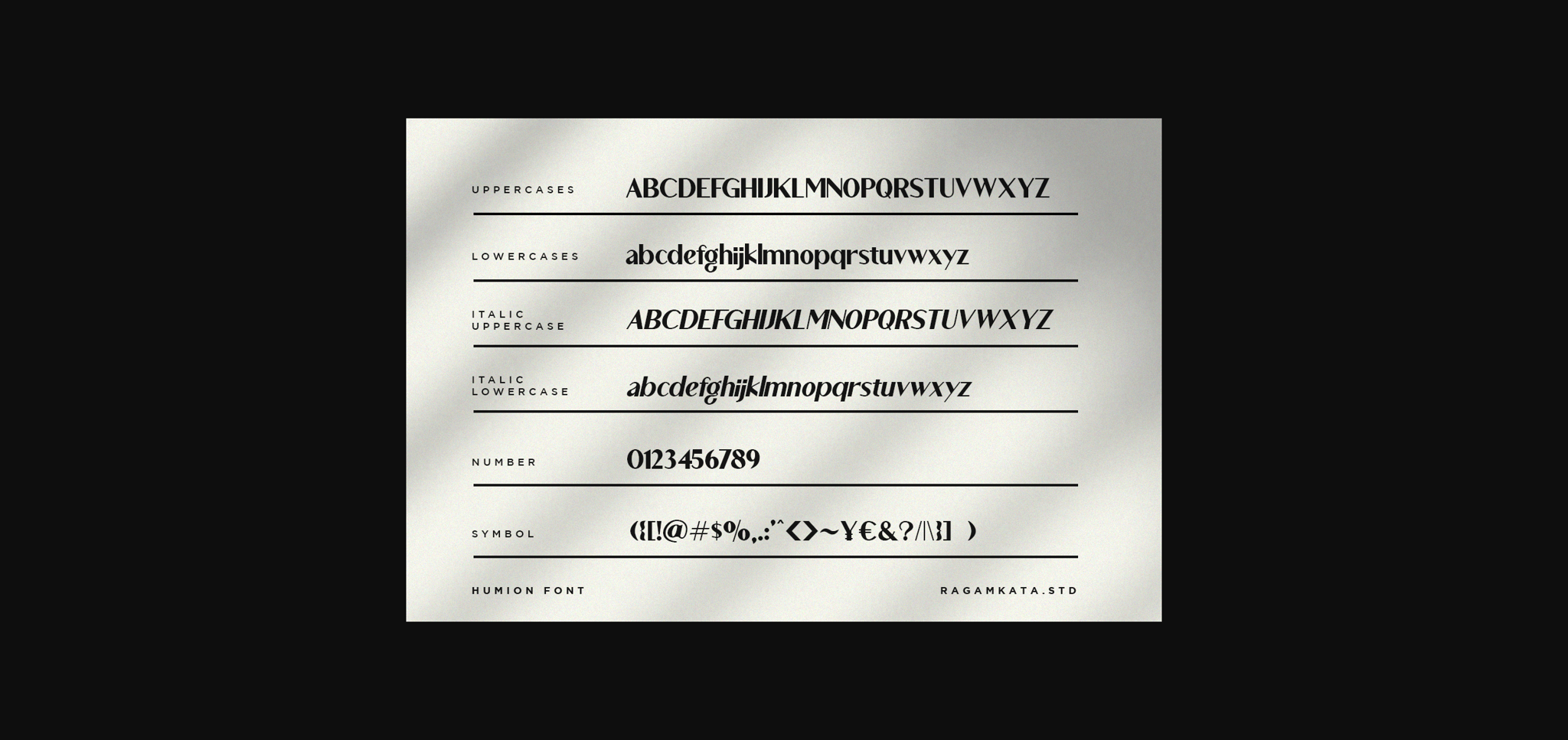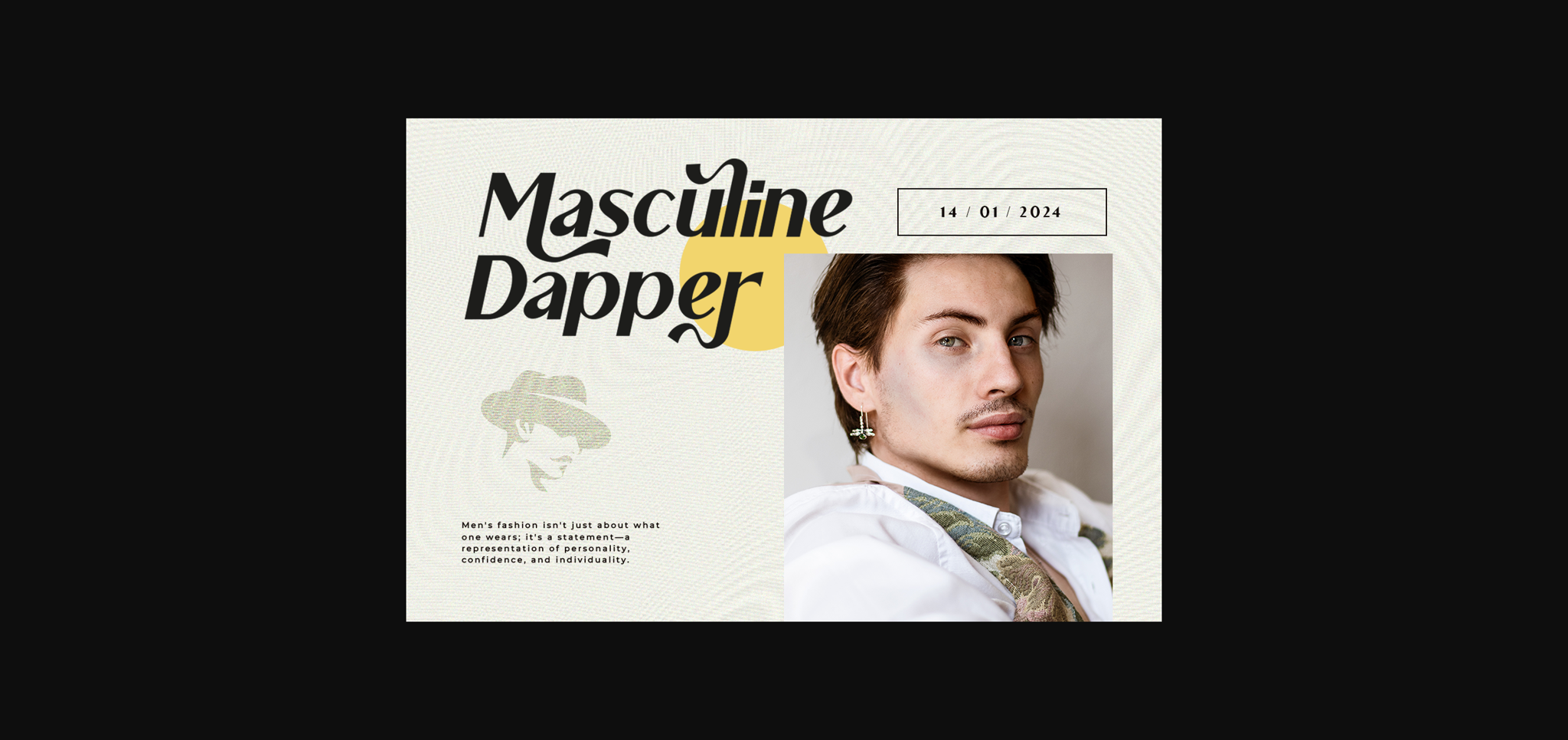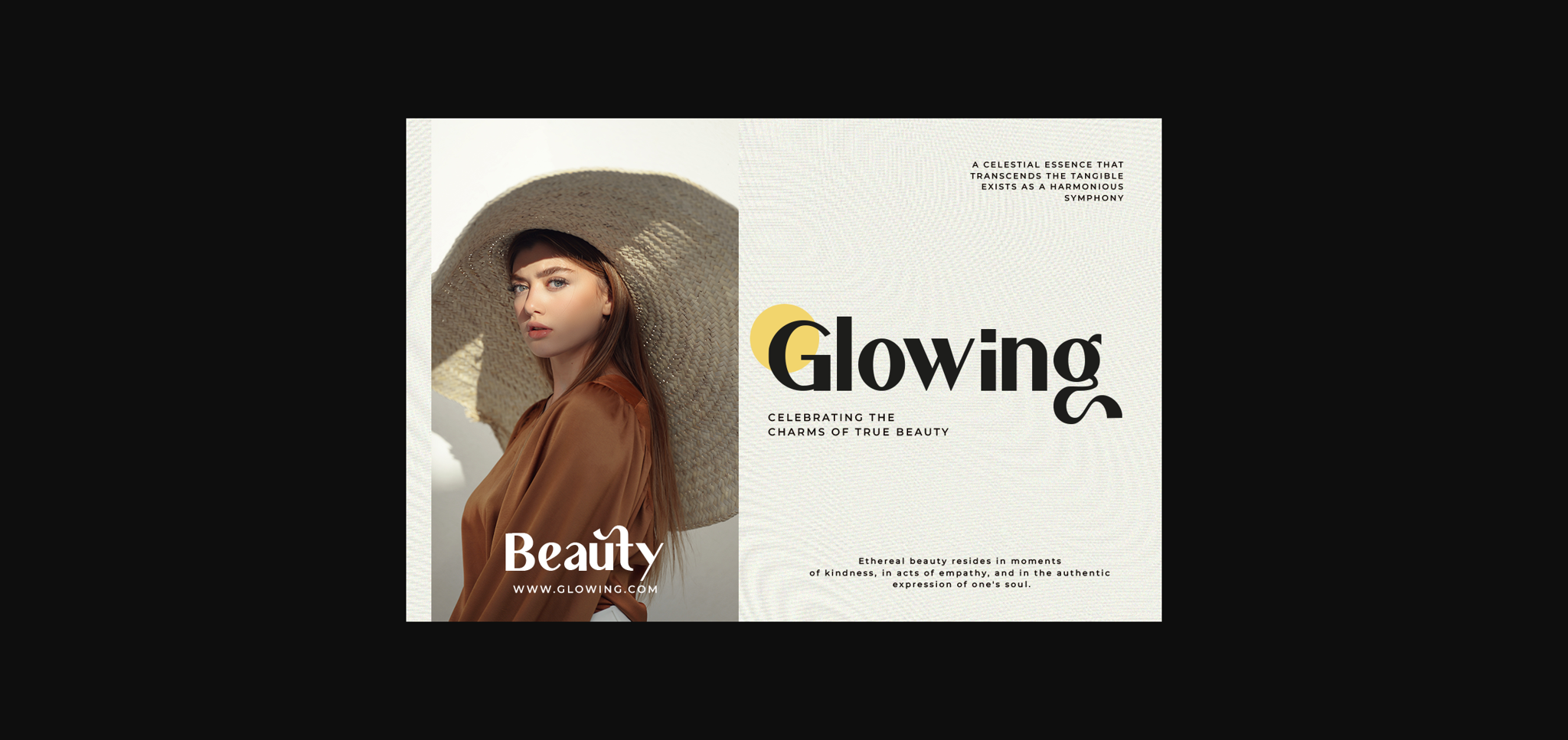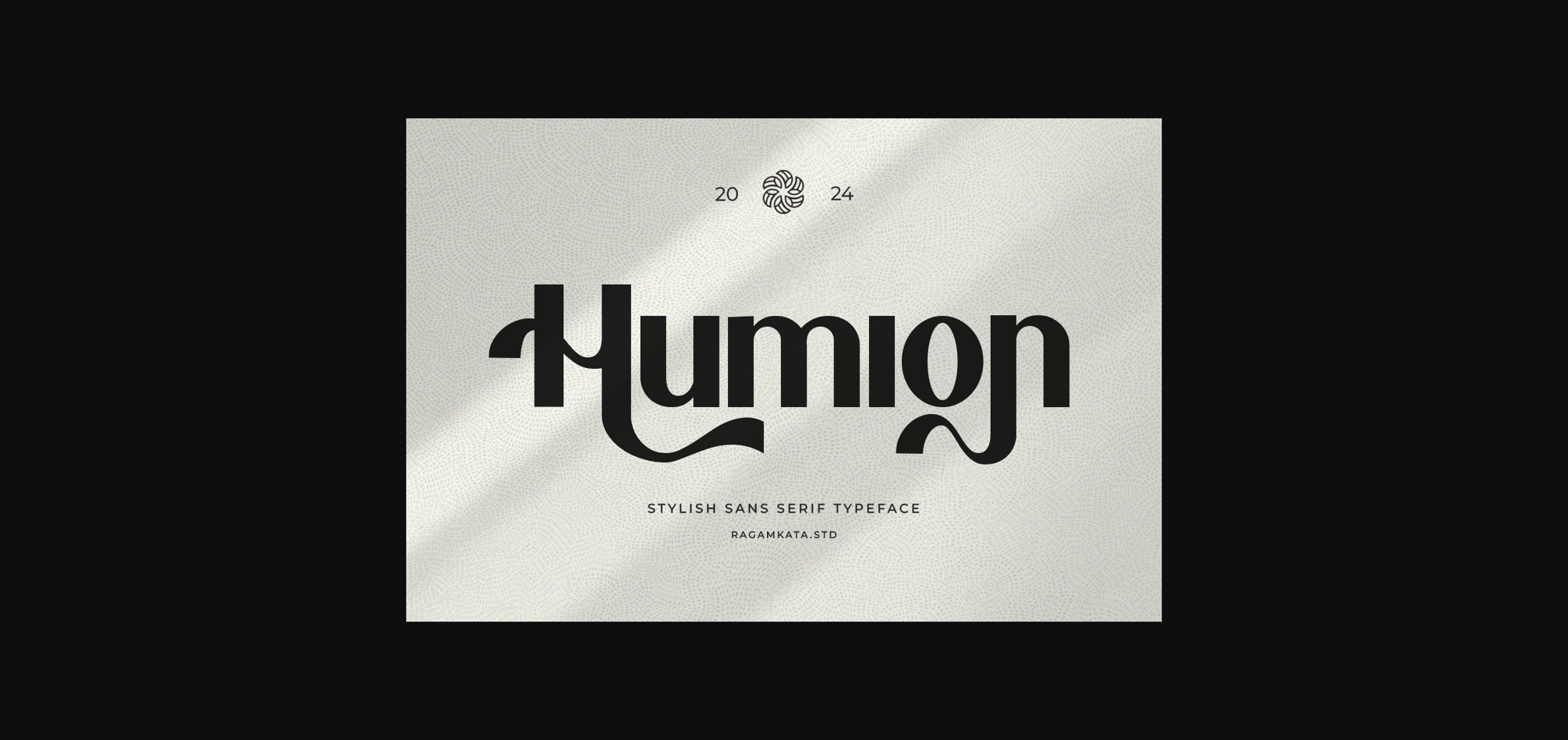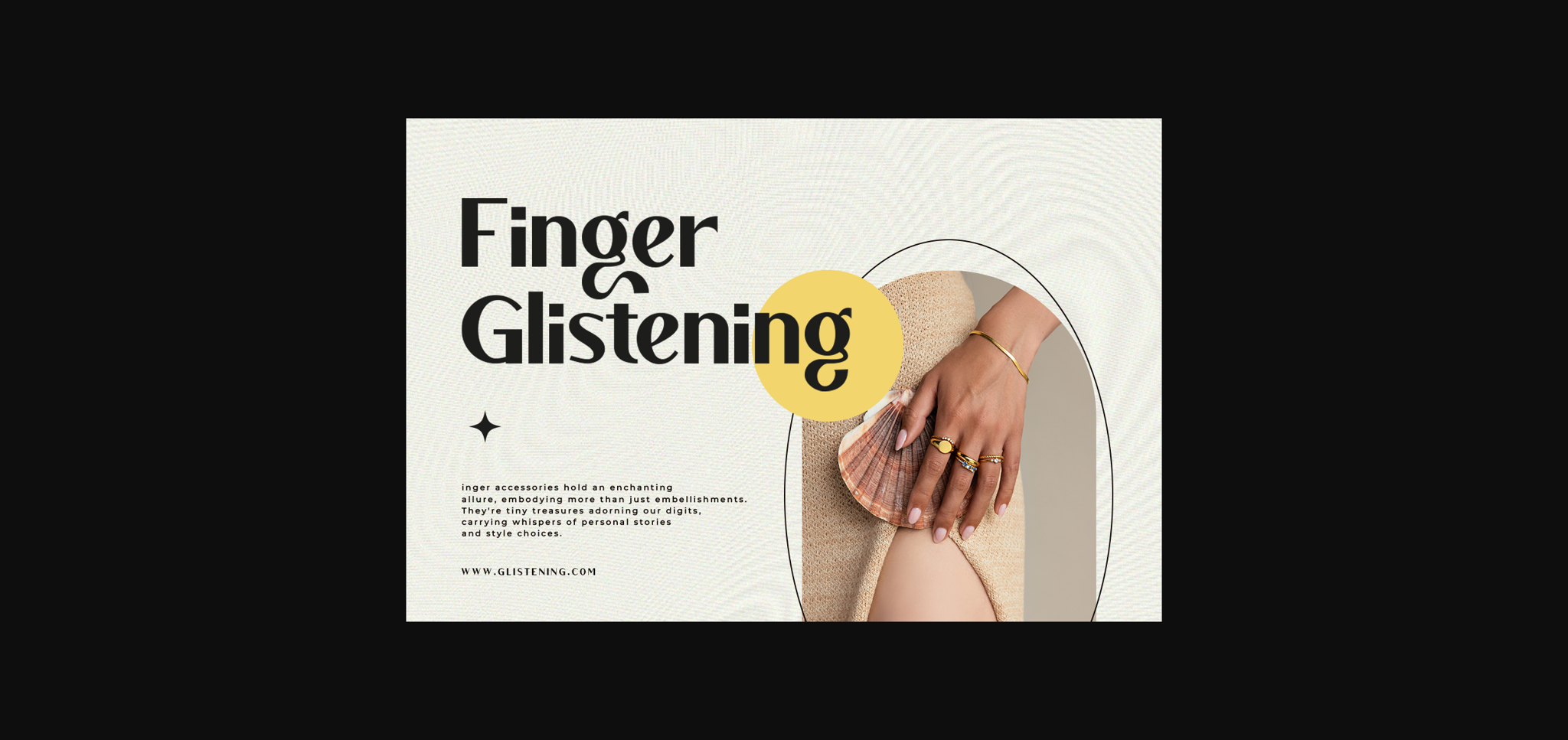
About Humion Font
Humion comes in a modern style featuring Alternates with swash making it easy to adapt to your design. An elegant typeface, Humion is perfect for corporate identities, websites, publications, titles, books, magazines, business cards, logos, product labels, packaging, or any kind of advertising purpose.